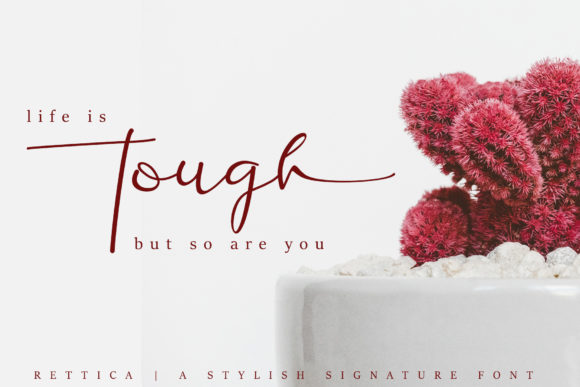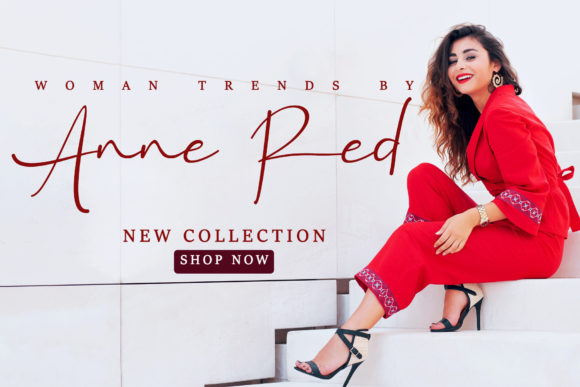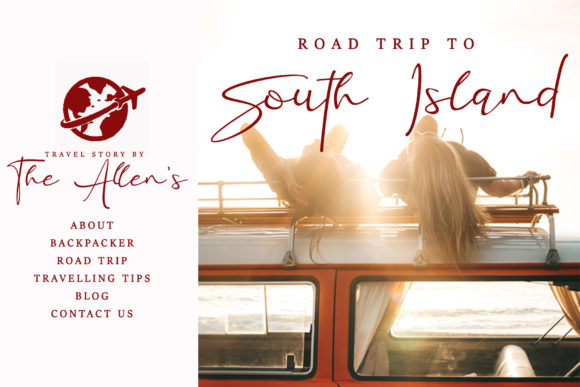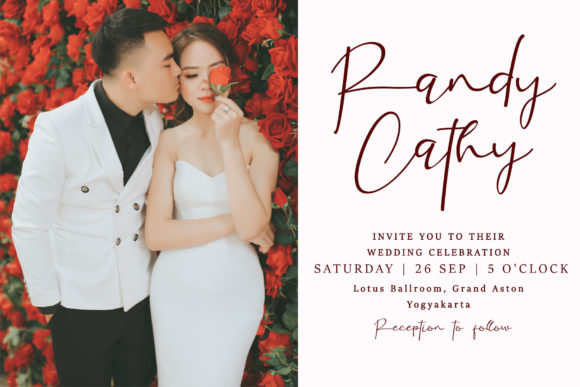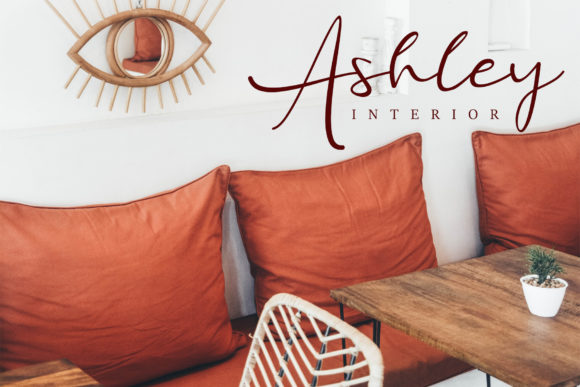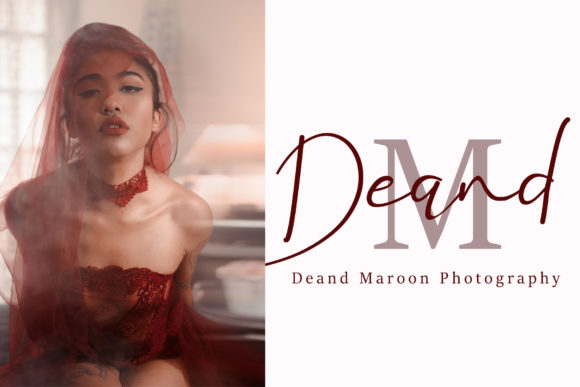
Introduction to Rettica Font
Rettica is a stylish signature font.
It will look awesome on logos, branding, watermark, wedding invitations and stationary .